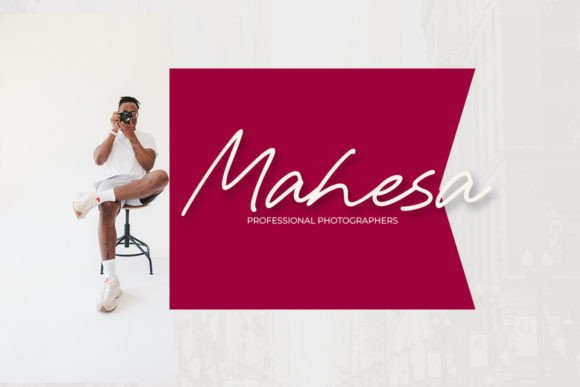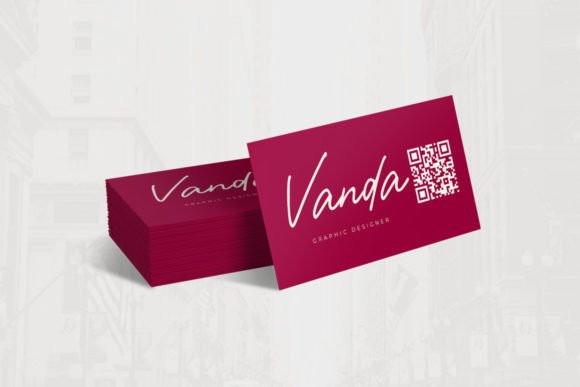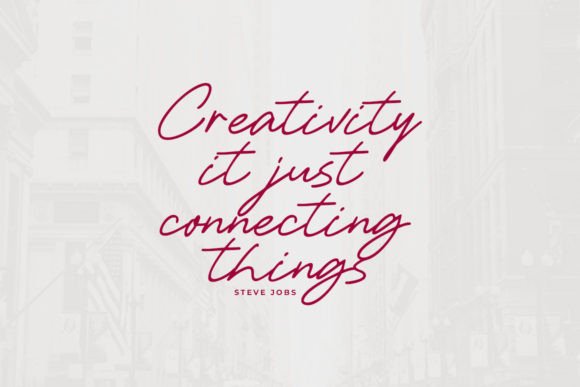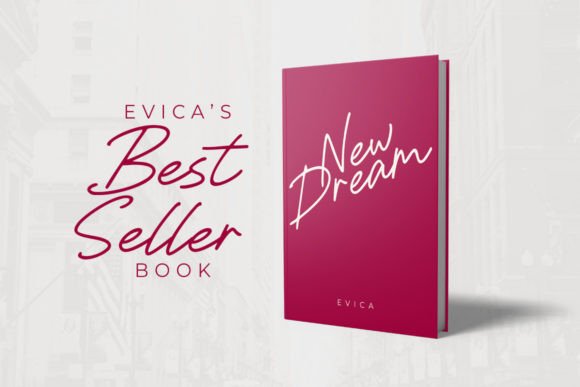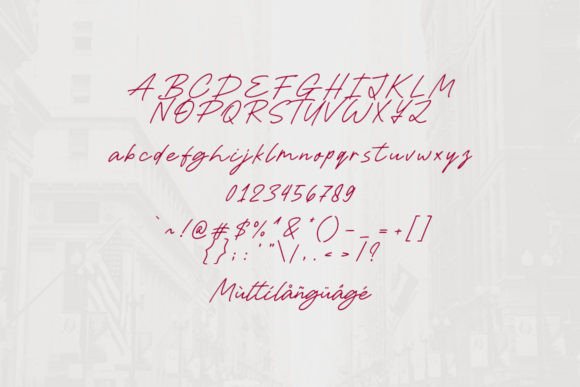
Unleash Your Creativity with the Best Whises Font
Have you ever stared at a blank page, waiting for the perfect idea to strike? It’s that moment when everything comes together, and your design vision starts to take shape. For many of us, it’s the moment when the right font makes all the difference.
That’s where the Best Wishes Font comes in – a clean, stylish, modern, and elegant script font designed to elevate your designs to the next level. Perfect for posters, logos, magazines, book covers, banners, and many more, this font is a valuable addition to any designer’s toolkit. With its versatility and sophistication, it’s no wonder the Best Whises Font is a go-to choice for creatives looking to make a lasting impression.
- Unique Characteristics: Best Whises Font features a unique blend of modern and vintage elements, with intricate details and ornaments that add a touch of elegance to any design.
- Font Weight: Best Whises Font comes in a range of font weights, from Light to Bold, allowing designers to choose the perfect weight for their project.
Designer Review: Best Whises Font
First off, I think Best Whises Font has some great qualities. ✨ The font’s unique, modern design gives it a fresh and stylish feel. It’s perfect for designers and creatives who want to add a bit of personality to their projects. ✨ The font’s versatility is also a major plus – it works well for both digital and print designs.
Some of the things I love about Best Whises Font include:
- Its clean and minimalistic design, making it perfect for corporate and business projects.
- Its wide range of languages supported, making it a great option for global projects.
- Its high-quality vector files, which ensure crisp and clear typography.
However, there are a few limitations to consider. ⚠️ The font’s bold weight can be a bit too bold for some projects, and the italic weight can be a bit too thin. Additionally, the font’s design may not be suitable for very small text sizes.
Overall, I think Best Whises Font is a solid choice for designers and creatives. While it may have some limitations, its unique design and versatility make it a great option for a wide range of projects.